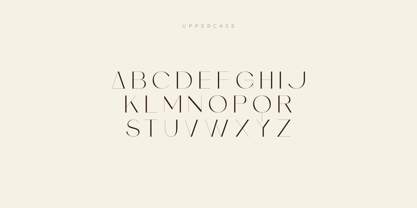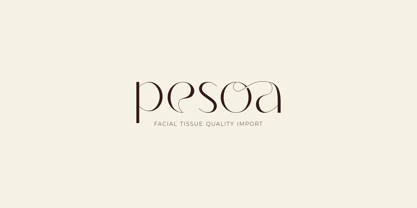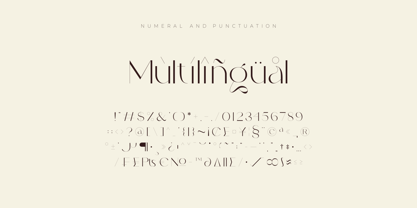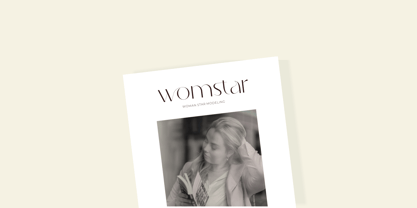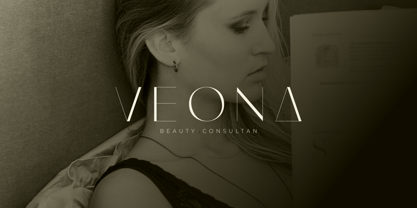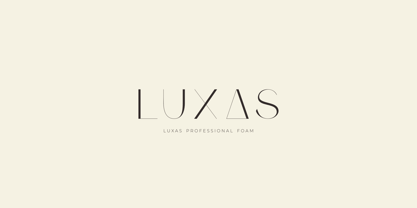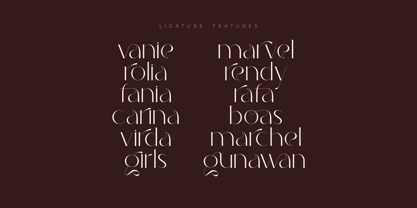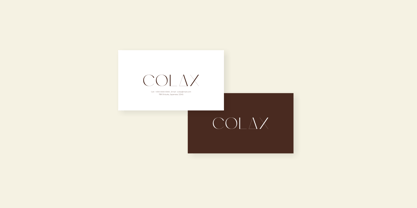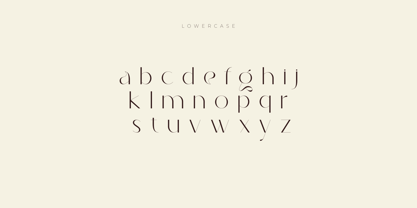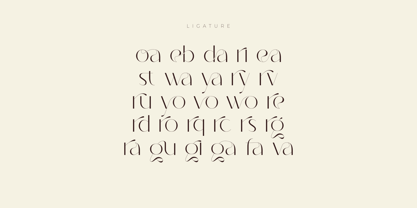
Consa
by suhadidesign
The Consa Font Family was designed by ahmad suhadi and published by suhadidesign. Consa contains 1 styles. More about this family
Consa - Sans Serif Minimalist Font
The latest minimalist font that is being sought after by many ladies and gentlemen is the Consa font. The Consa font is a minimalist sans serif font to keep it cool. With a modern model and equipped with ligature features, this font is a favorite on the market. We keep this font looking elegant, classy, ​​stylish. The Consa font is the right choice for cosmetics, beauty, brands, logos, wordmarks, magazines, designs, books, publications, branding, brand names, business cards, social media, classy designs, newspapers, branding, beauty, and other projects. The Consa font is here to improve the quality of your design.
Features:
• Uppercase
• Lowercase
• Ligature
• Multilingual Support
• Numerics
• Punctuation
Designers: ahmad suhadi
Foundry: suhadidesign